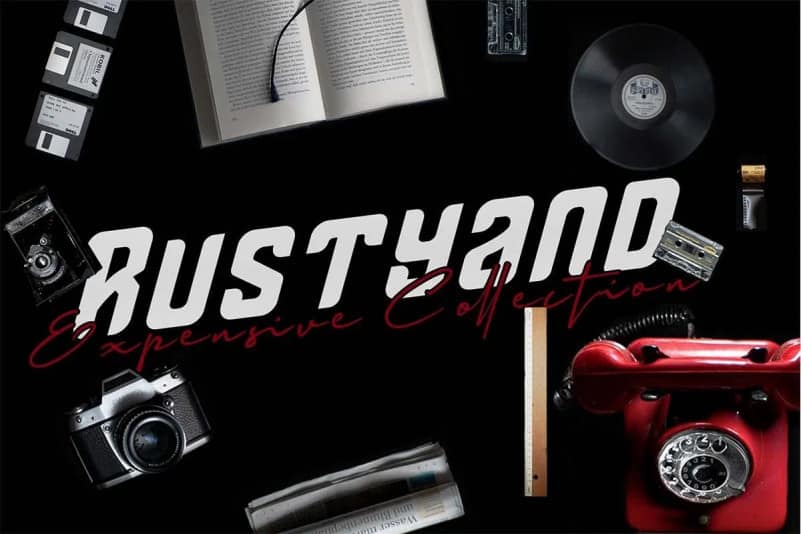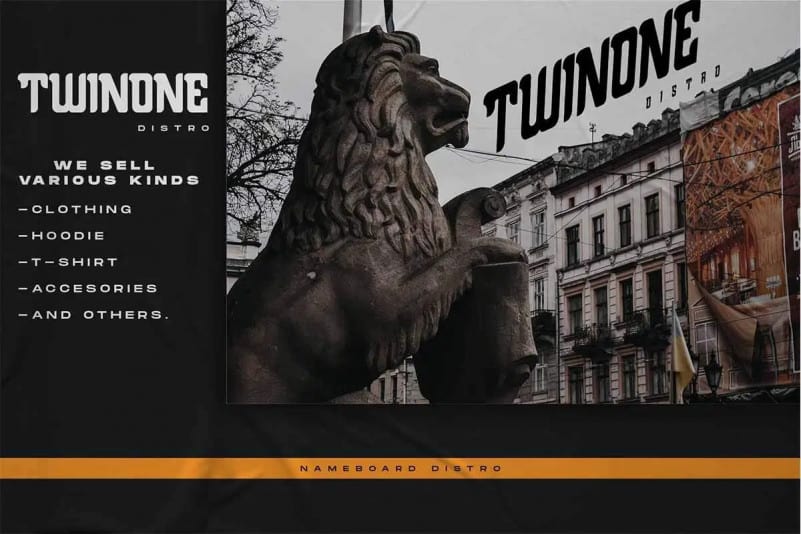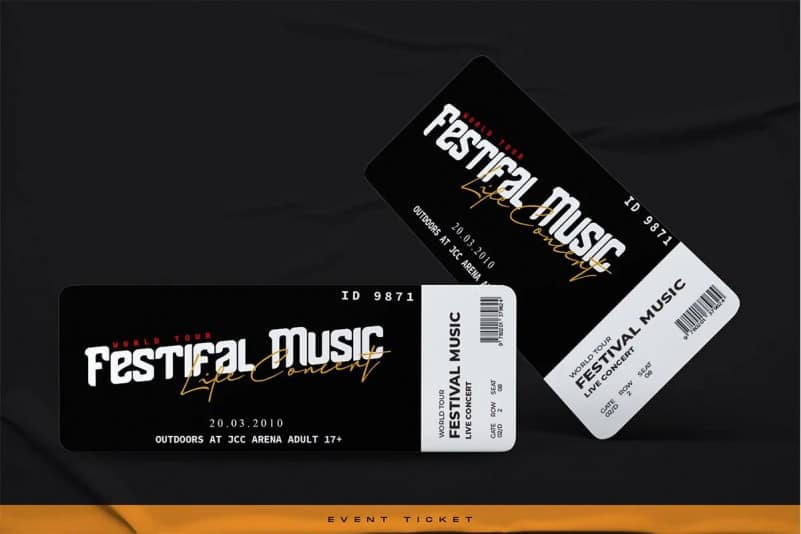
Thenacious Display Font
Thenacious Display Font is a high-contrast sans serif display typeface for a wide range of application. Due the high contrast and warm curves, very suitable as to make adorable invitation for wedding, birthday, special day. A collection of letters and numbers suitable your projects also great for Logotype, Branding Design, Logo Design, Digital Lettering Arts, T-Shirt/Apparel, Poster, Magazine, Signs, Advertising Design, and also perfect for your other projects branding.